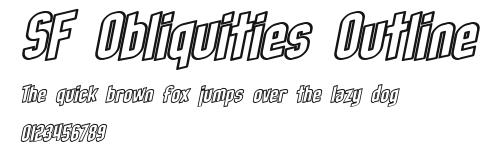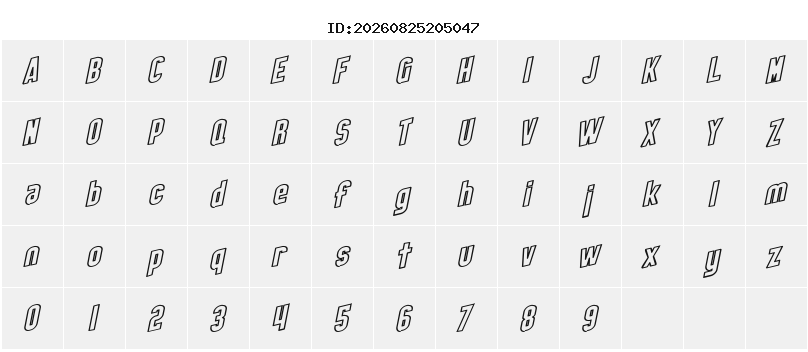
SF Obliquities Outline Preview
• Font Name: SF Obliquities Outline
• Font ID: SF Obliquities Outline
• Full Font Name: SF Obliquities Outline
• PostScript Name: SFObliquitiesOutline
• Character Count: 176
About SF Obliquities Outline.ttf
SF Obliquities Outline.ttf is a modern, elegant sans-serif font designed for ultimate readability and visual harmony. Perfect for branding, headlines, web design, and print materials.